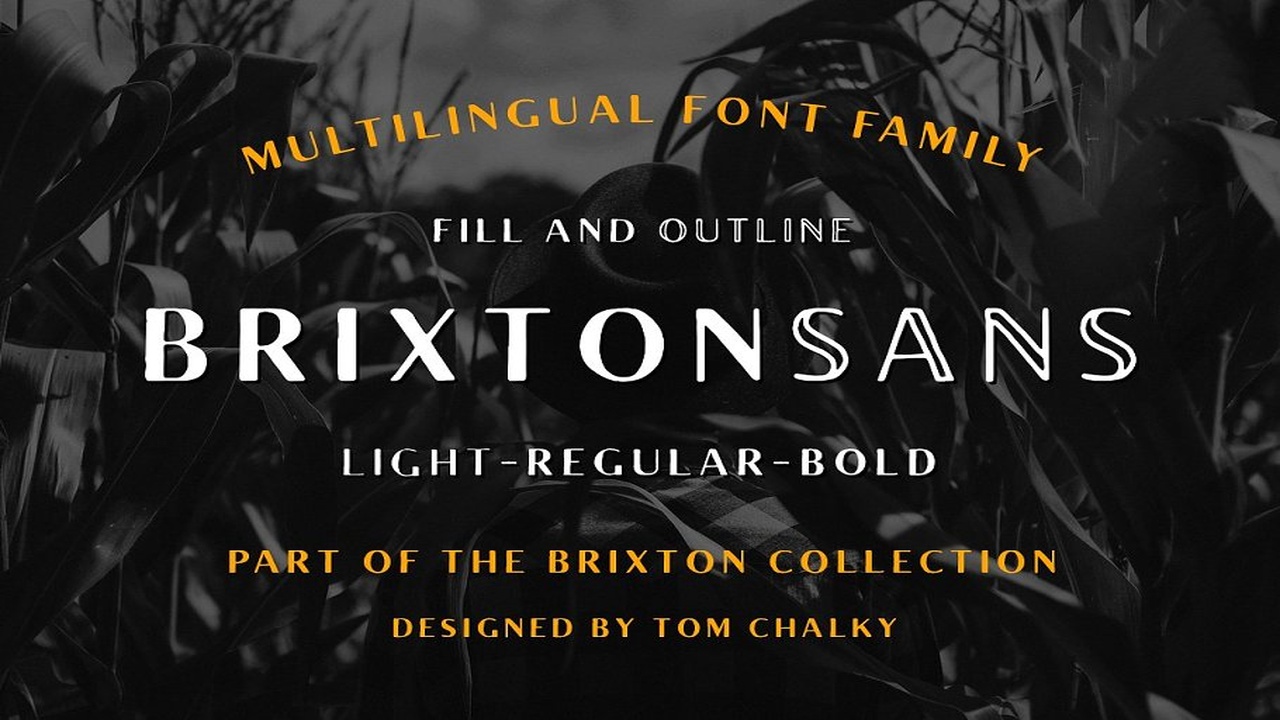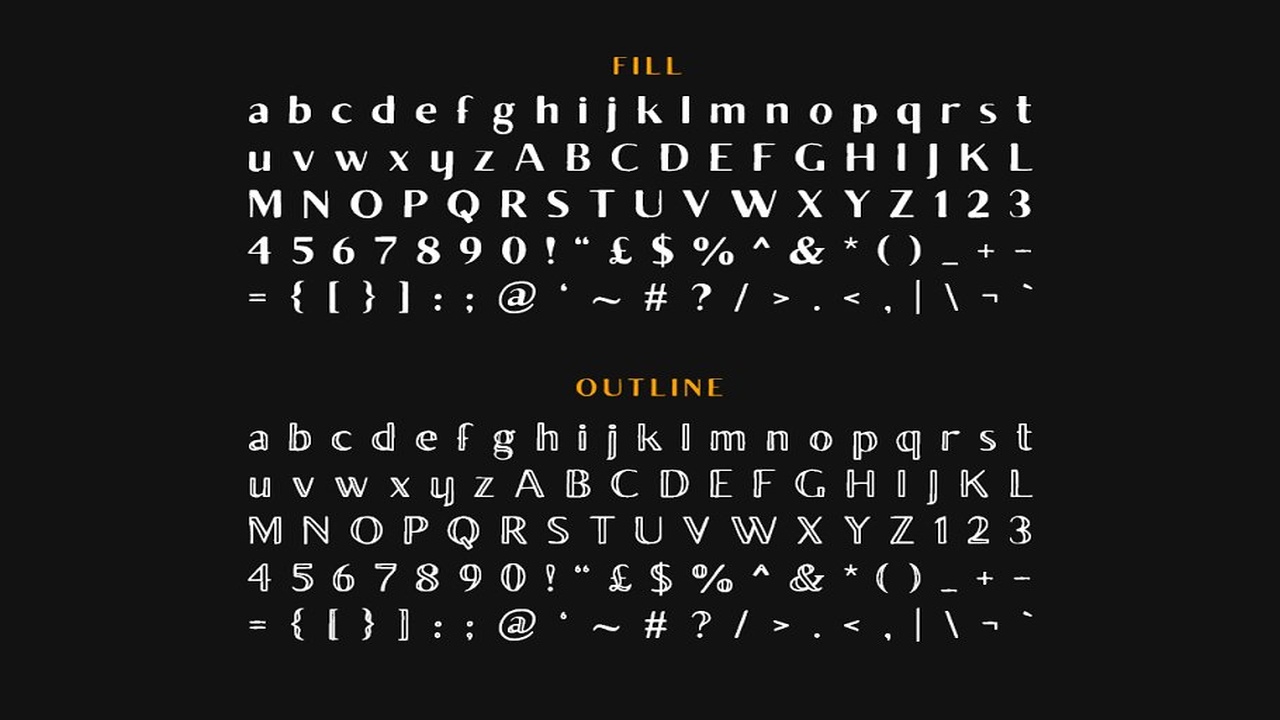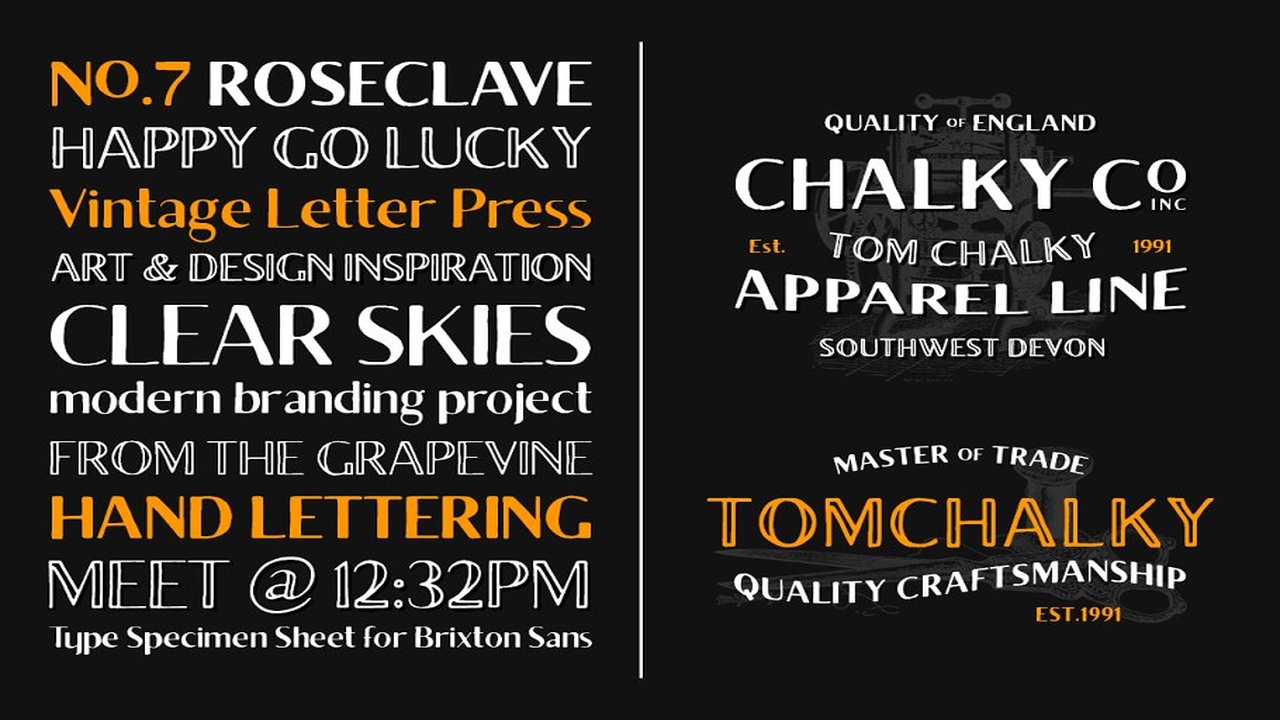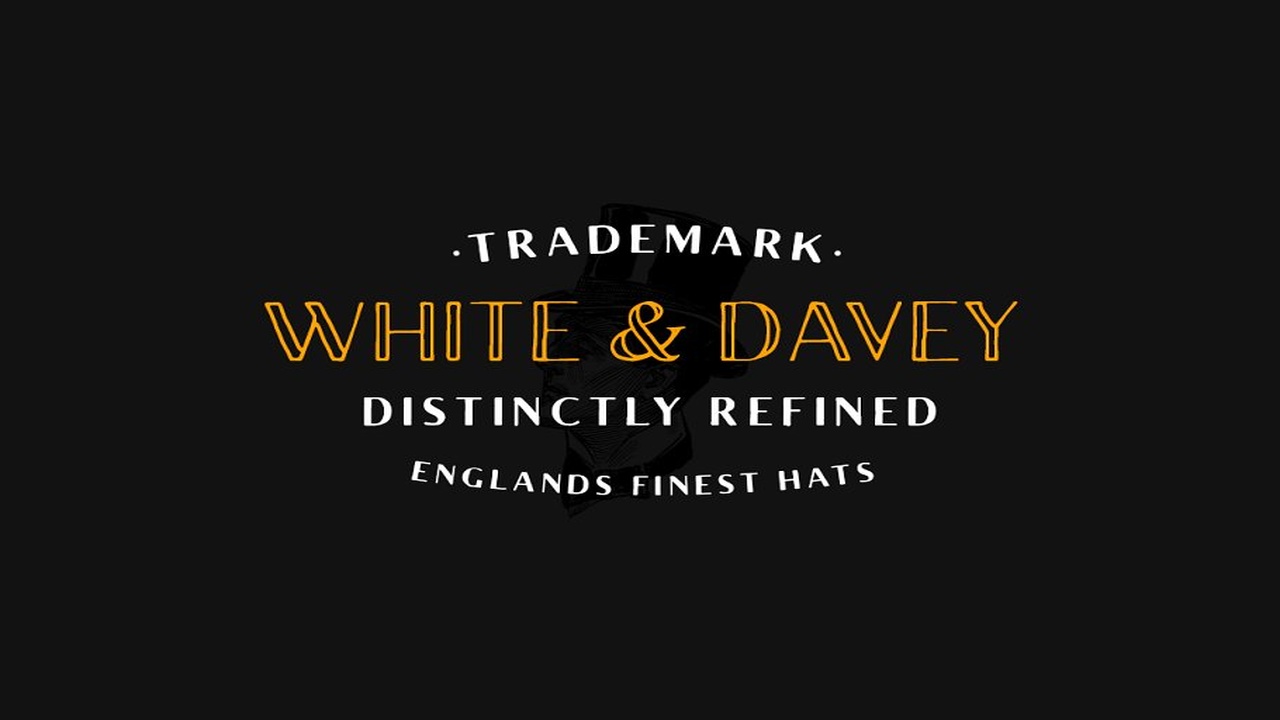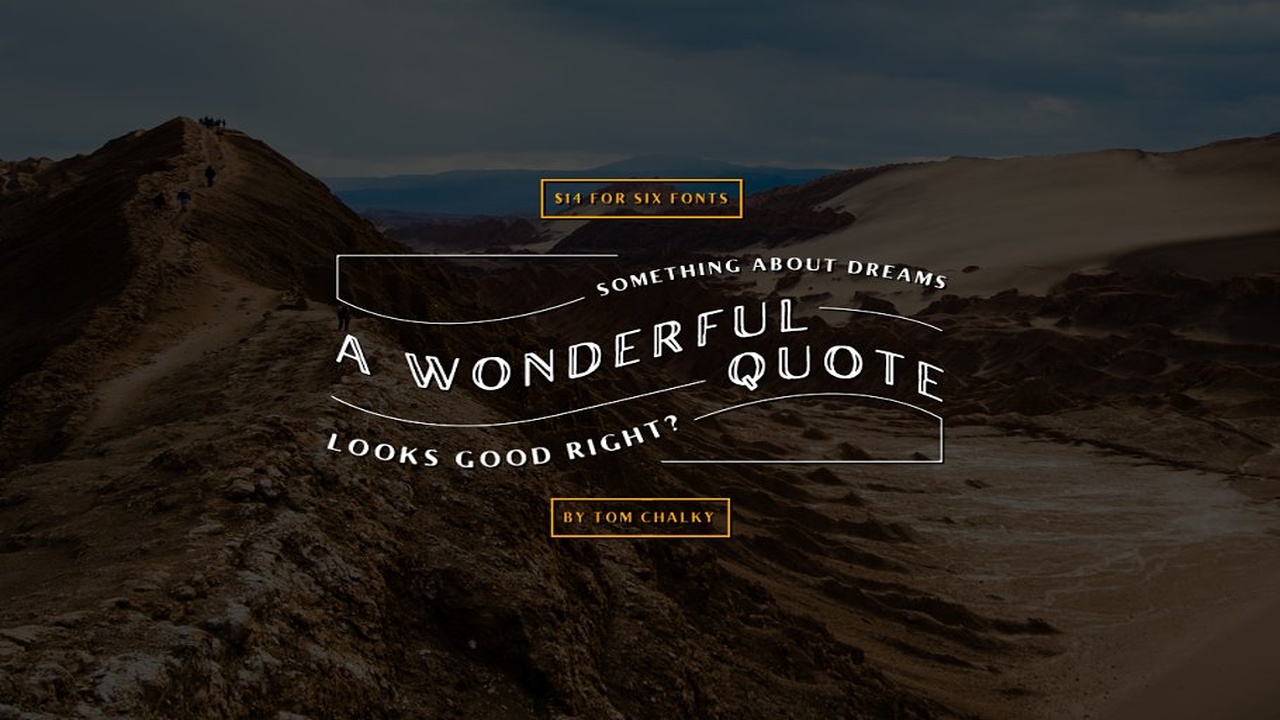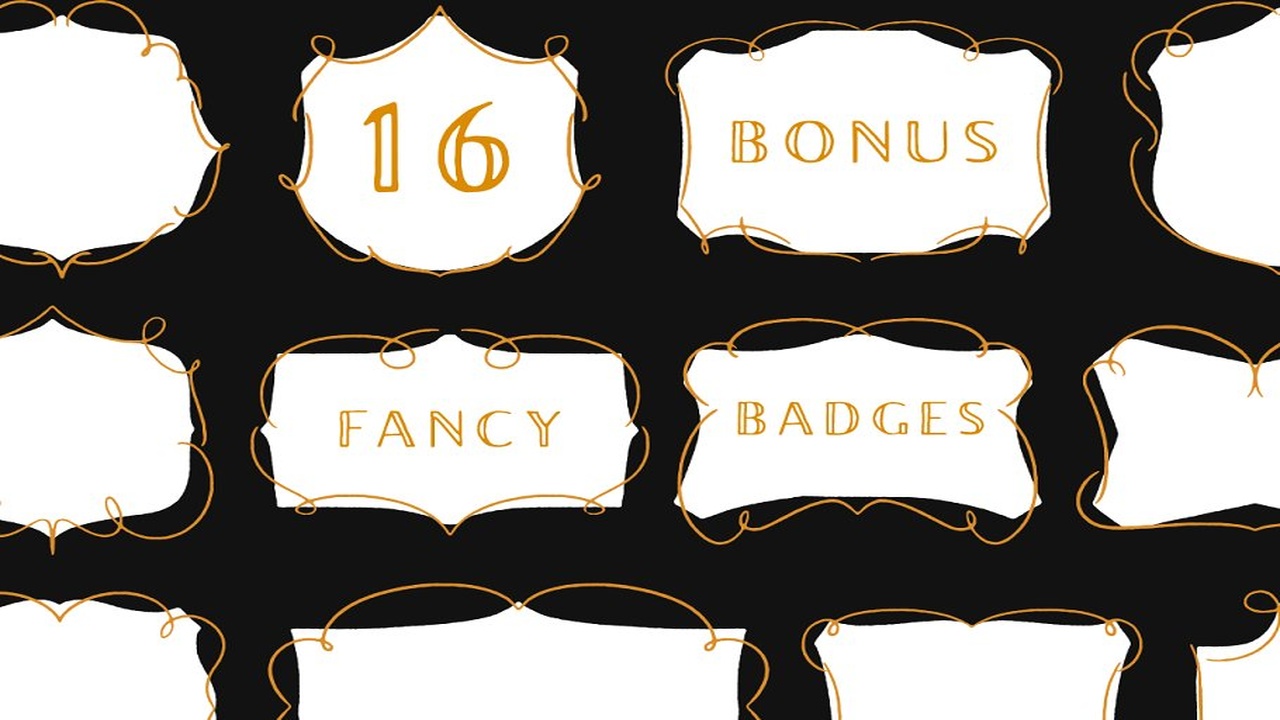
About the Brixton Sans Extras Font
BRIXTON SANS – A Hand Drawn Sans-Serif Family with Fill & Outline StylesBrixton Sans was originally designed in 2012 and has been available ever since, however, I have since expanded the family by introducing a light and bold weight as well as an outlined alternative that perfectly compliments, making the Brixton Sans collection an even more versatile bunch! The family also features OpenType kerning that automatically adjusts the spaces between the most popular letter combinations for a professional finish